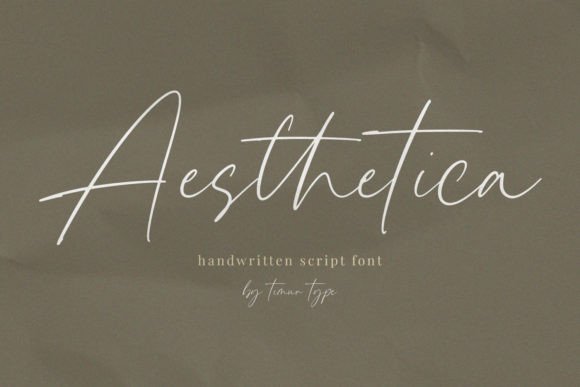
Behold, Aesthetica, the captivating script font that will transform your creative visions into breathtaking realities. Crafted by Timur Type, this exquisite font embodies elegance and sophistication, ready to elevate your designs to new heights. Whether you're a seasoned designer or just starting your artistic journey, Aesthetica holds the key to unlocking your true creative potential.
Immerse yourself in the world of Aesthetica, where letters dance gracefully upon the page, intertwining like vines around a trellis. Its meticulously crafted curves exude a timeless charm, reminiscent of classic calligraphy, yet with a modern twist that keeps it fresh and contemporary.
With Aesthetica, you'll find endless possibilities for expression. Its versatility shines through in its ability to seamlessly adapt to a wide range of projects, from elegant wedding invitations and heartfelt love letters to captivating social media posts and eye-catching branding materials. Let Aesthetica bring a touch of sophistication to your product packaging, breathe life into your branding efforts, or simply add a dash of charm to your personal correspondence.
Aesthetica is more than just a font; it's an experience, an extension of your creative self. Indulge in the beauty of its flowing lines, the subtle nuances that add depth and character to every word. Let Aesthetica be your muse, inspiring you to create designs that captivate and enchant your audience.
With Aesthetica by your side, you'll discover a world of creative possibilities, where your imagination knows no bounds. Embrace the artistry, embrace the elegance, and embrace the power of Aesthetica. Your creative journey awaits; let Aesthetica be your guiding light.